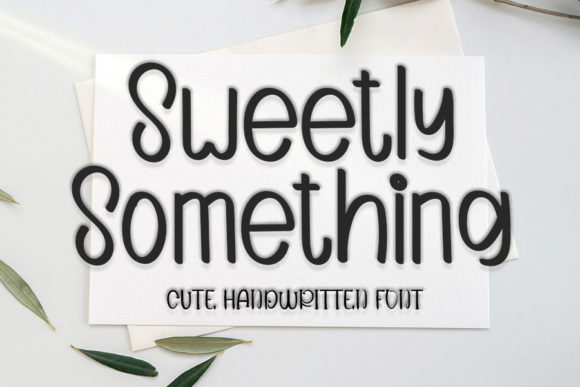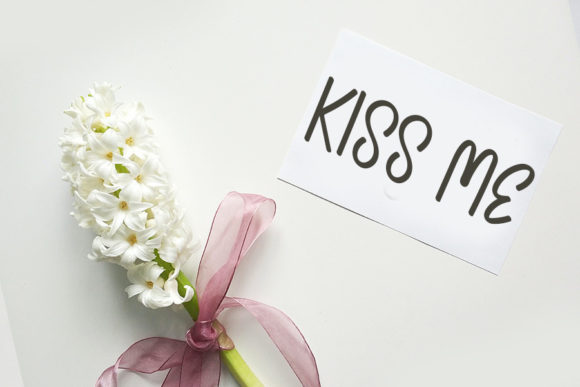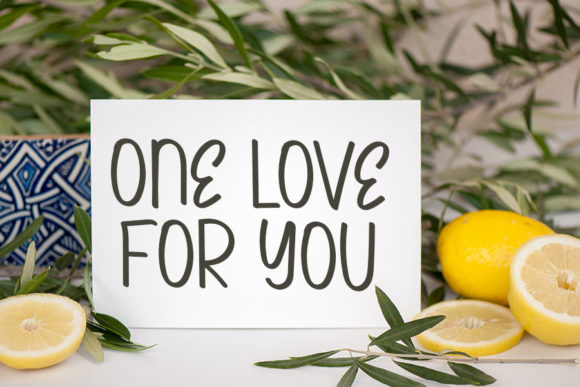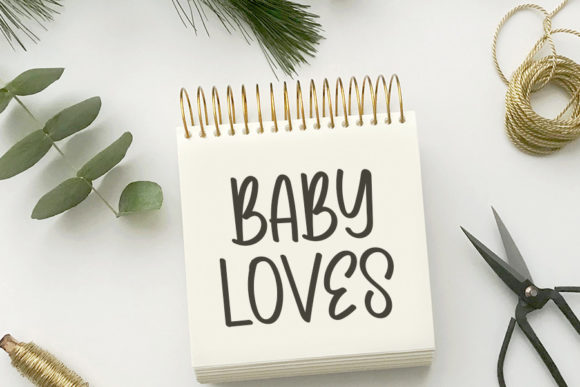
About Sweetly Something Font
Sweetly Something is a beautiful and refined handwritten font that exudes elegance and sophistication. With its modern look, this font is perfect for a variety of design projects, including branding, invitations, stationery, wedding designs, social media posts, and more.
The carefully crafted and well-balanced letterforms of Sweetly Something give it a stylish and contemporary feel. Whether you’re creating a stunning brand identity, designing captivating invitations, crafting personalized stationery, curating eye-catching wedding designs, or posting engaging content on social media, this font will elevate your work and leave a lasting impression.
Sweetly Something’s versatility makes it suitable for a wide range of applications. It adds a touch of elegance and refinement to branding projects, helping to create a strong and memorable visual identity for your business. It brings a modern and sophisticated flair to invitations and stationery, setting the tone for a special event or correspondence. It enhances the beauty and charm of wedding designs, adding a romantic and personalized touch. And it elevates the visual impact of social media posts, making your content stand out in the digital space.
Embrace the beauty and refinement of Sweetly Something and let it inspire your creative projects. Incorporate this font into your designs, and you’ll see how it enhances the overall aesthetics and creates a sense of sophistication that captivates your audience.